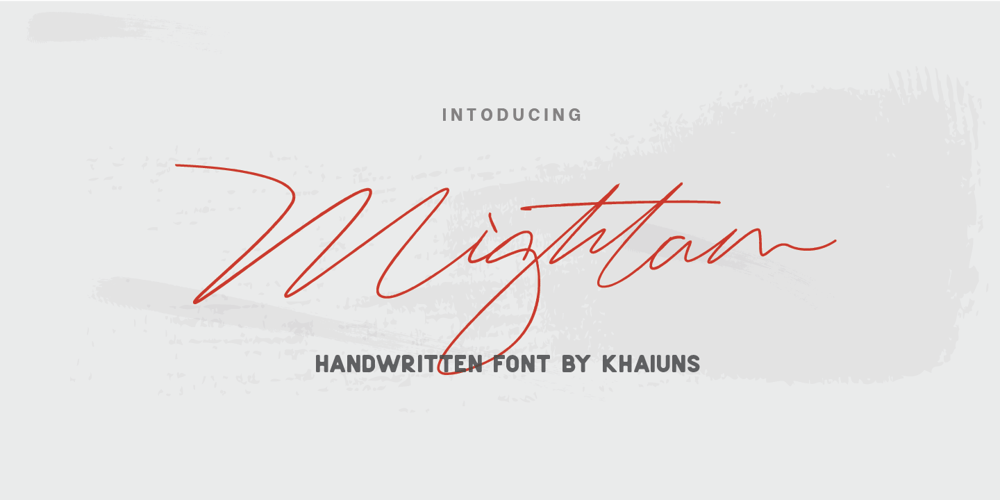
Mightam
Mightam font
Mightam Font Family was designed by Khair Unnas and published by Khaiuns. Mightam contains 1 styles and family package options. Say hello for Migtham Handstylish Font! Best match for logo, badge, packaging, headline, poster, t-shirt/apparel, greeting card, and wedding invitation. The flowing characters are ideal to make attractive messages. Migtham Font is the embodiment of modern design and calligraphy!Mightam Font has 82 ligatures that flow beautifully, I hope you have a blast using Migtham script Font!Thanks for use this font ~ Khaiuns